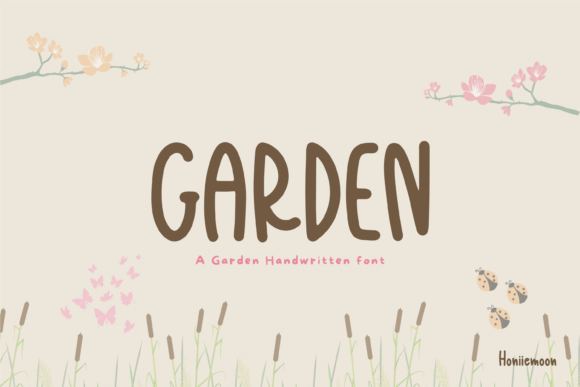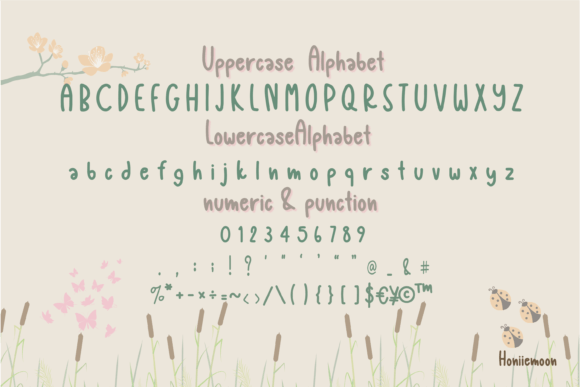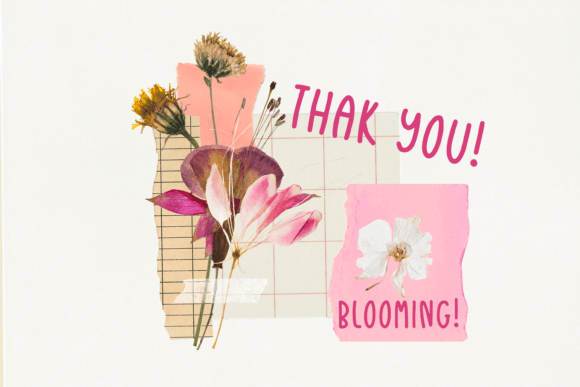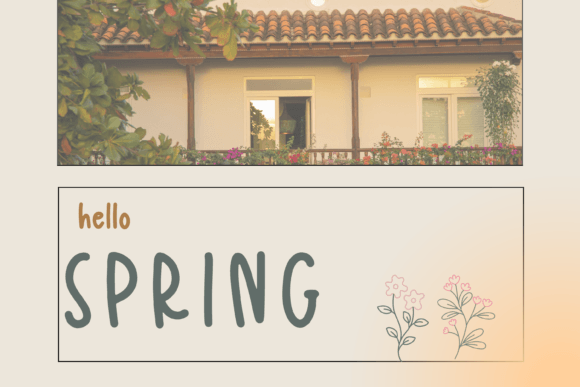
Garden Font: A Cute Handwritten Font for Cricut & DIY Projects
About the Garden Font
Elevate your designs with Garden Font, a font that combines sophistication with readability. Garden is a cute handwritten font. It looks both fun and jolly and it will enhance each of your designs. The only limit is your imagination. Add this adorable and friendly font to each of your creative ideas and notice how it makes them come alive!
Garden’s playful, rounded forms make it ideal for projects needing a friendly, approachable feel. It excels in headlines, short text blocks on packaging, and social media graphics. Use it sparingly in branding elements like logos or short taglines, where its charm adds personality. Avoid using it for body text or lengthy paragraphs; its informal nature detracts from readability in extended passages.
Pairing Garden with a clean sans-serif like Open Sans for body text provides excellent contrast and readability. For a more sophisticated look, consider a classic serif like Garamond for supporting text. If a more playful aesthetic is desired, a geometric sans-serif such as Montserrat could also work well.
Garden’s core personality is undeniably cheerful and approachable, making it perfect for brands targeting a young, playful audience. Think children’s products, cafes, or businesses emphasizing fun and friendliness.
Garden Font Usage Examples
Garden Font Example